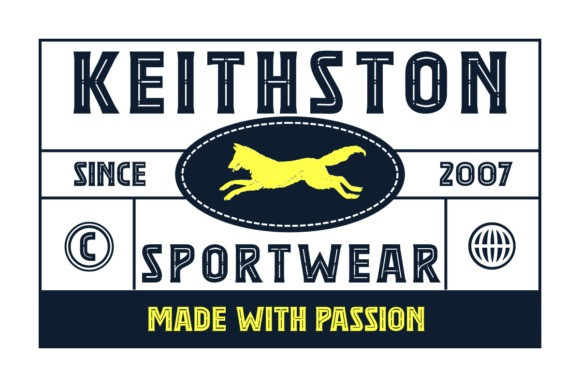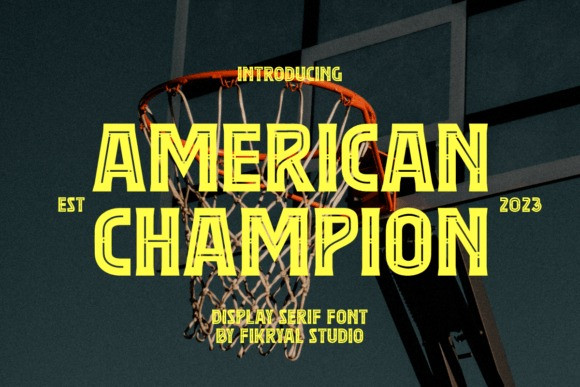
American Champion Font
American Champion Display Font is a cool and modern display font specially designed for any sports-related project. Its casual yet bold look will help you create original designs with little effort.